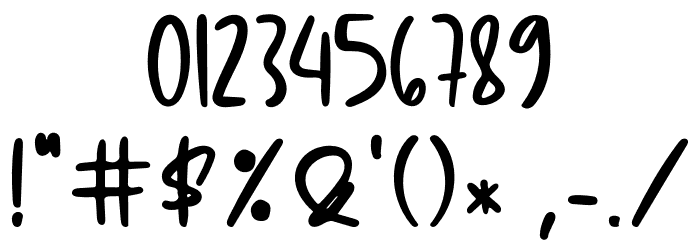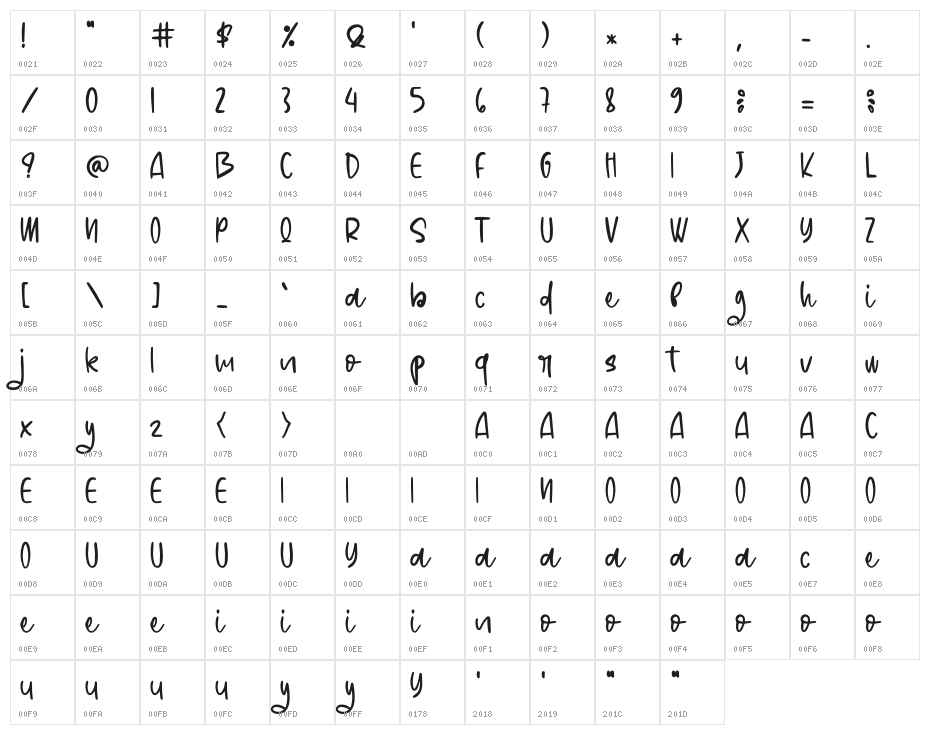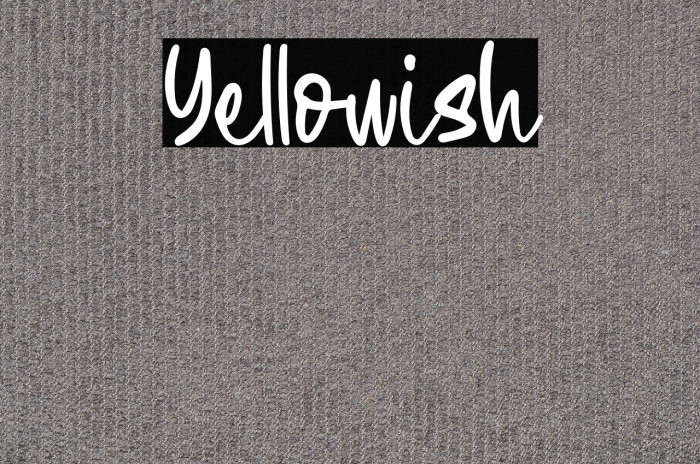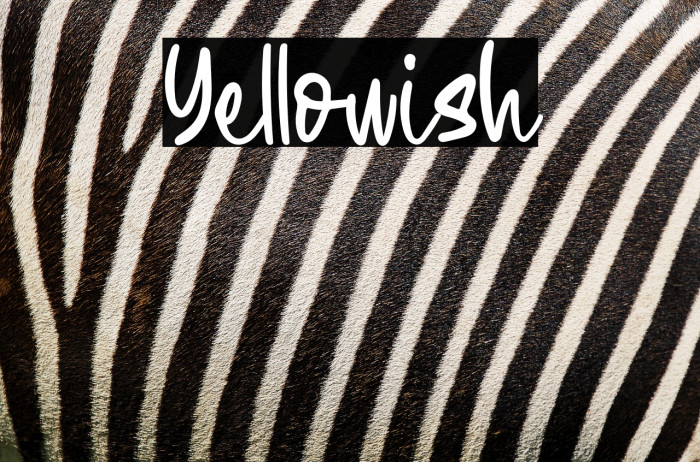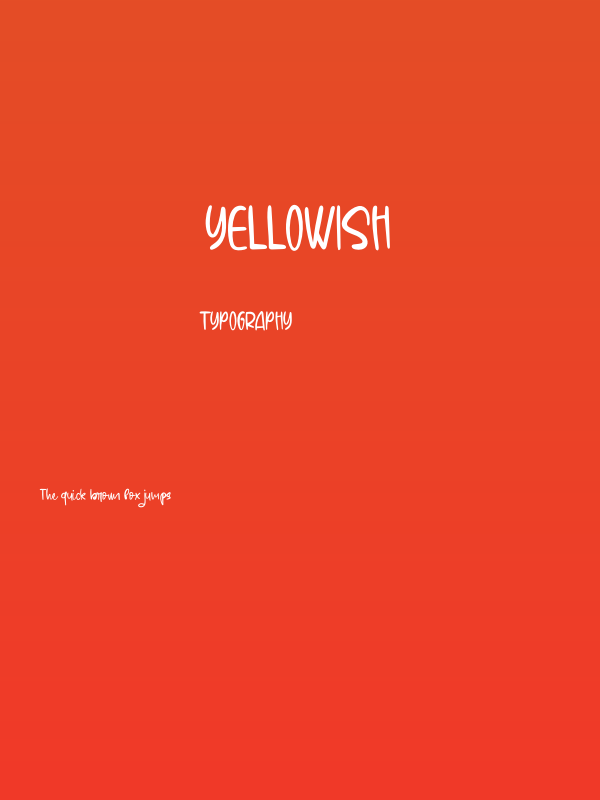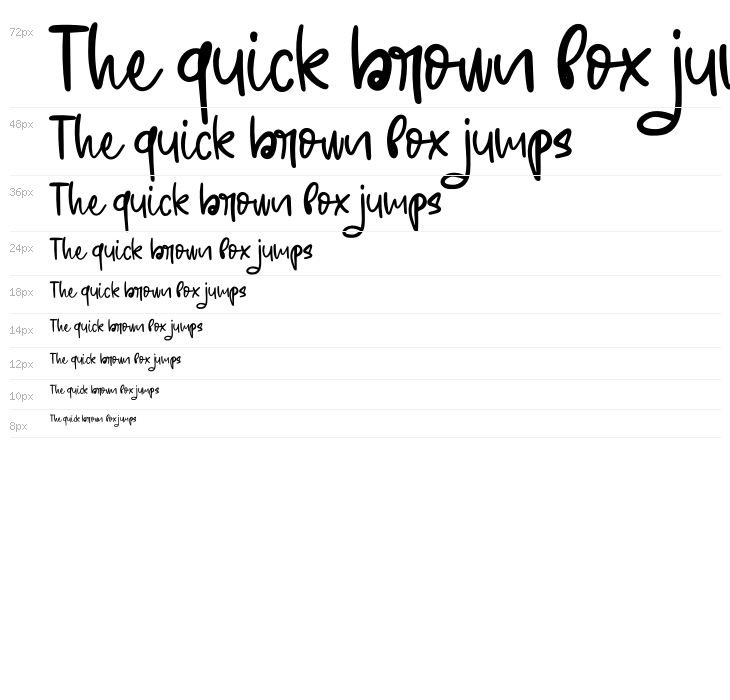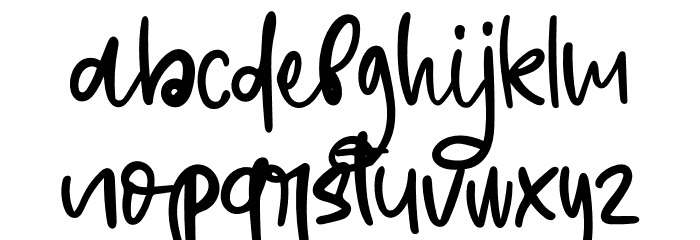
Yellowish Font
Yellowish Description
This font features a playful and casual handwritten style, characterized by its smooth curves and slightly irregular strokes. The uppercase letters are bold and prominent, while the lowercase letters exhibit a charming, flowing quality. The numbers maintain the same playful aesthetic, making them easily readable yet visually interesting. Special characters are creatively integrated, adding to the font's overall whimsical feel. The font's informal nature makes it ideal for projects that require a personal touch, such as invitations, greeting cards, or creative branding. Its unique style stands out, making it suitable for headlines or short text blocks where personality is key.
| Use Case | Headlines, Creative projects, Personal branding |
| Proposed Projects | Ideal for invitations, greeting cards, creative branding, and headlines. |